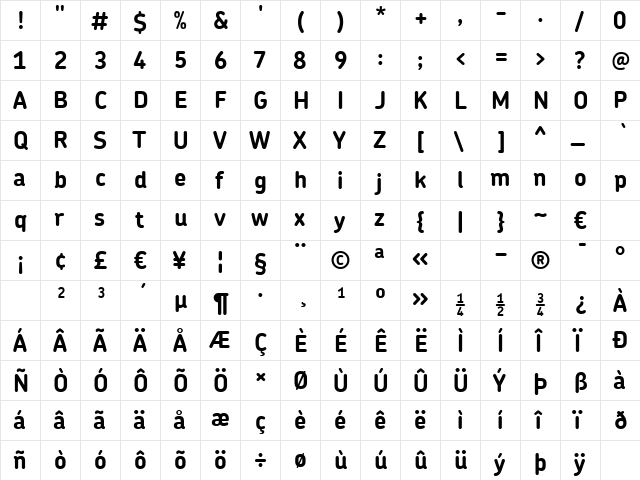
ChevinBold Regular
Design Context for ChevinBold Typeface
ChevinBold is a composed and adaptable typeface that performs quietly and consistently across a wide range of design contexts. Its bold stroke weight gives it real presence on the page.